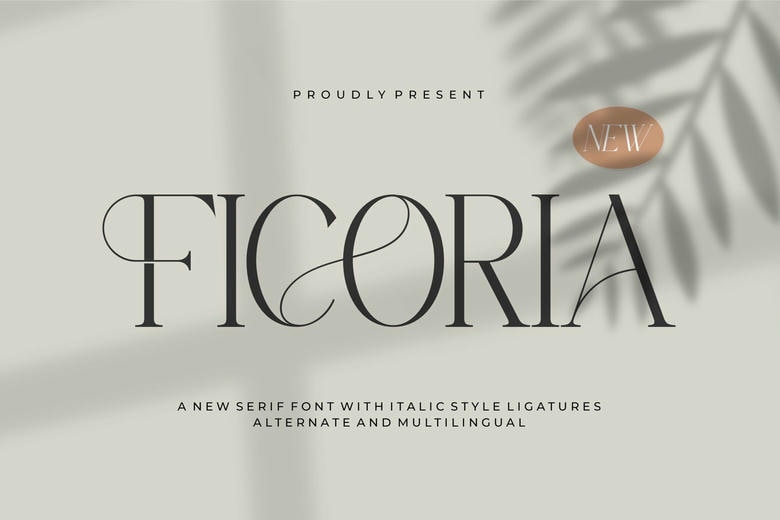
Ficoria Font
Ficoria is a modern serif typeface with italics, beautiful joined-up characters and Latin-based alphabets supported. Being thin and curvy it is ideal for logos, invitation cards, upper class brand naming, any sort of minimalism project.
Ficoria Serif Font